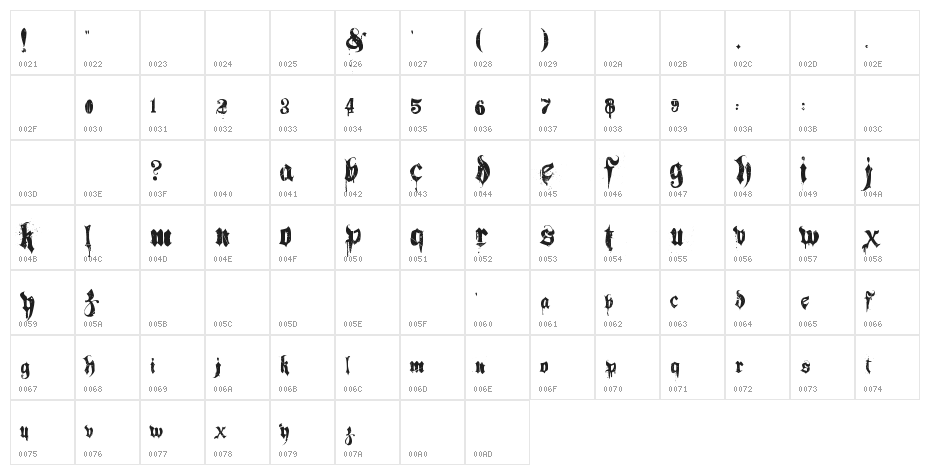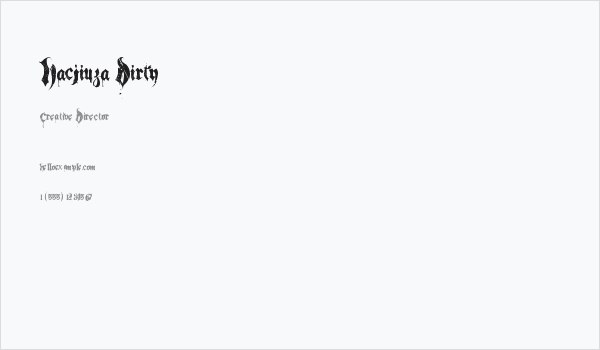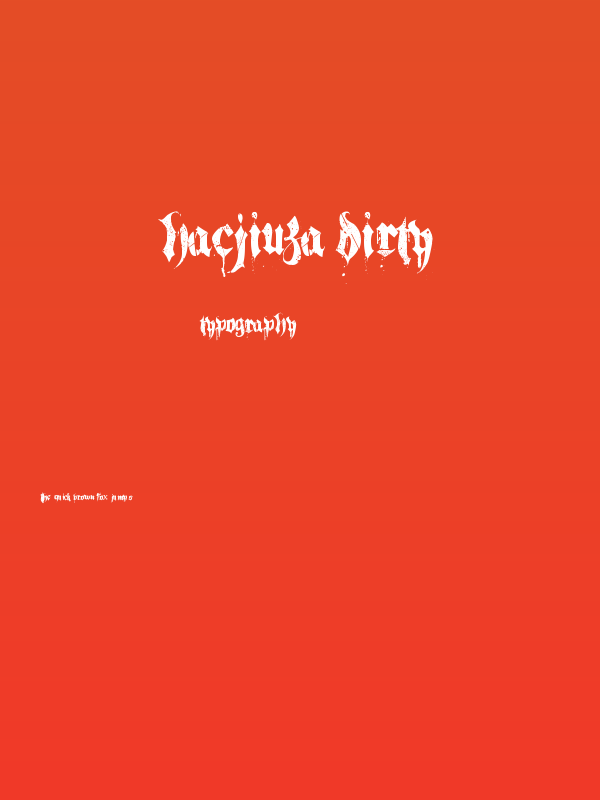
Hacjiuza Dirty Font
Hacjiuza Dirty Description
This font exudes a gritty, distressed aesthetic reminiscent of urban street art or grunge styles. The characters are bold and heavily stylized, with a blackletter influence that gives them a gothic appearance. Each letter is adorned with splatters and irregular edges, creating a sense of decay and rawness. The uppercase and lowercase letters maintain a consistent style, while the numbers and special characters follow the same rugged theme. This font is ideal for projects that require a dramatic and edgy look, such as band posters, album covers, or alternative fashion branding.
| Use Case | Logos, Headlines |
| Proposed Projects | Ideal for band posters, album covers, alternative fashion branding, or any project needing an edgy, dramatic look. |